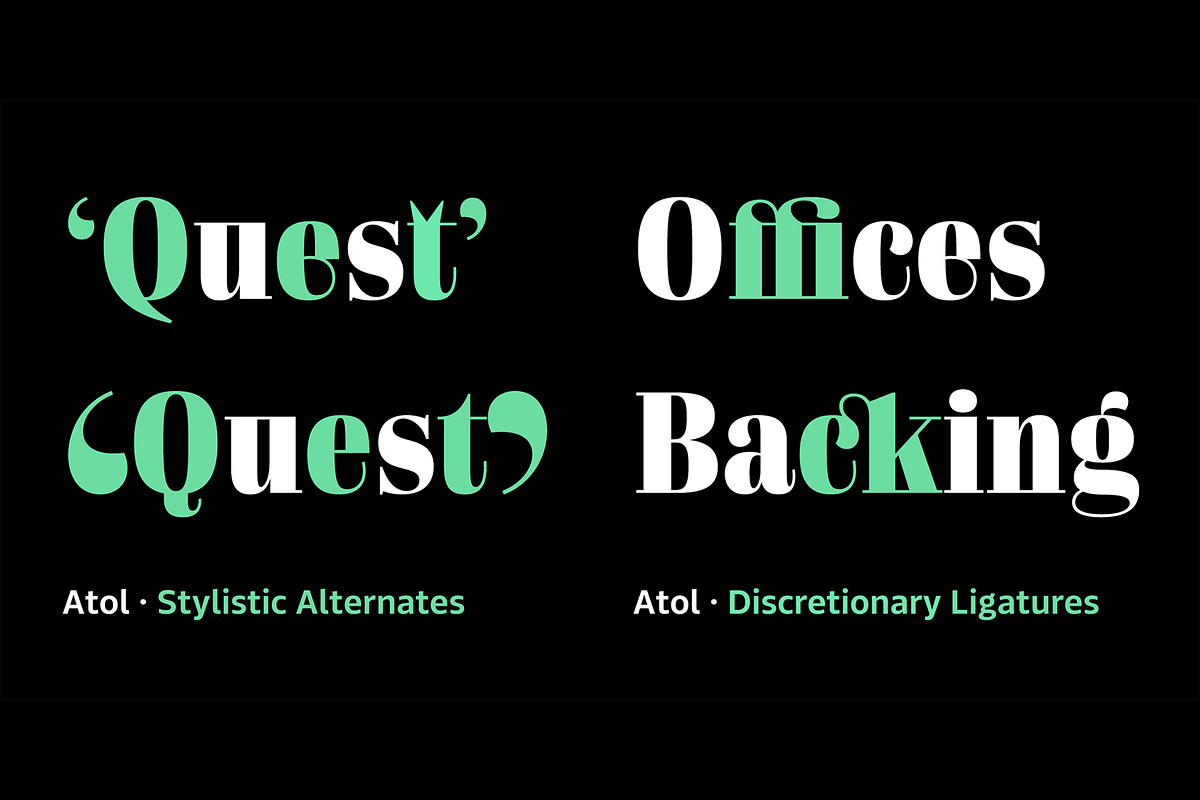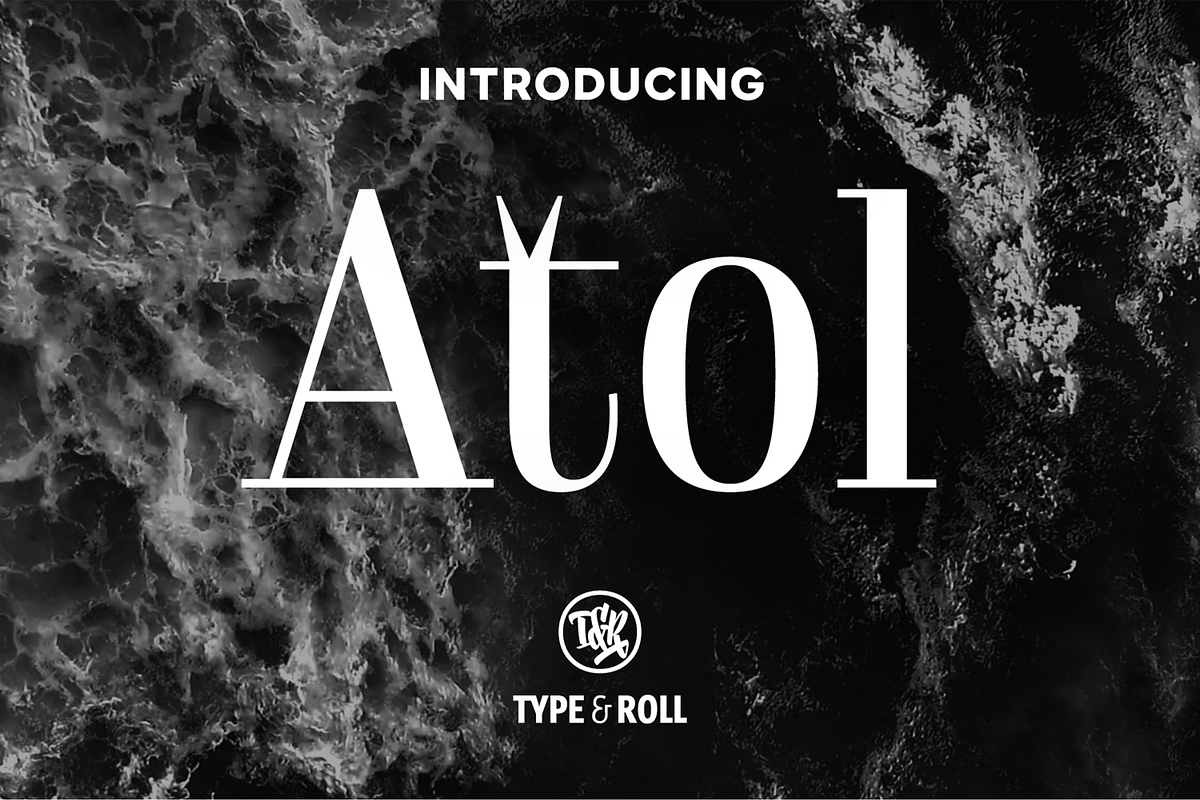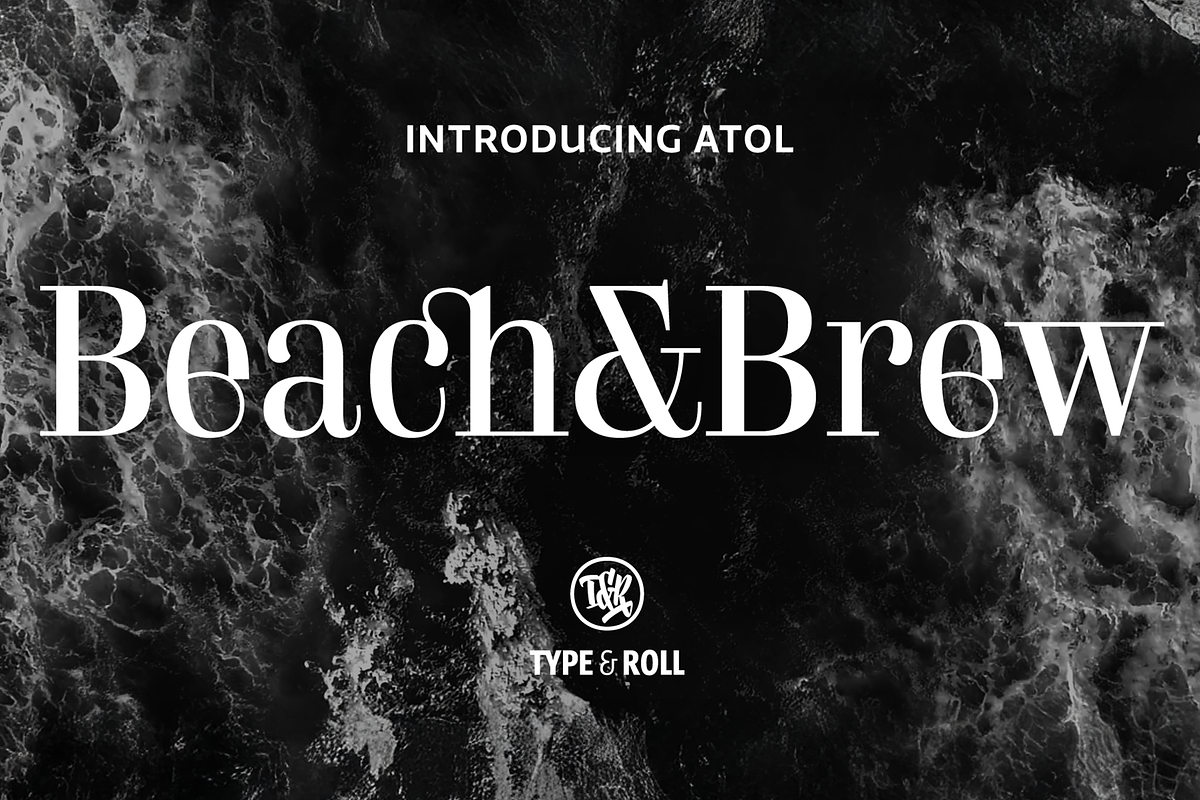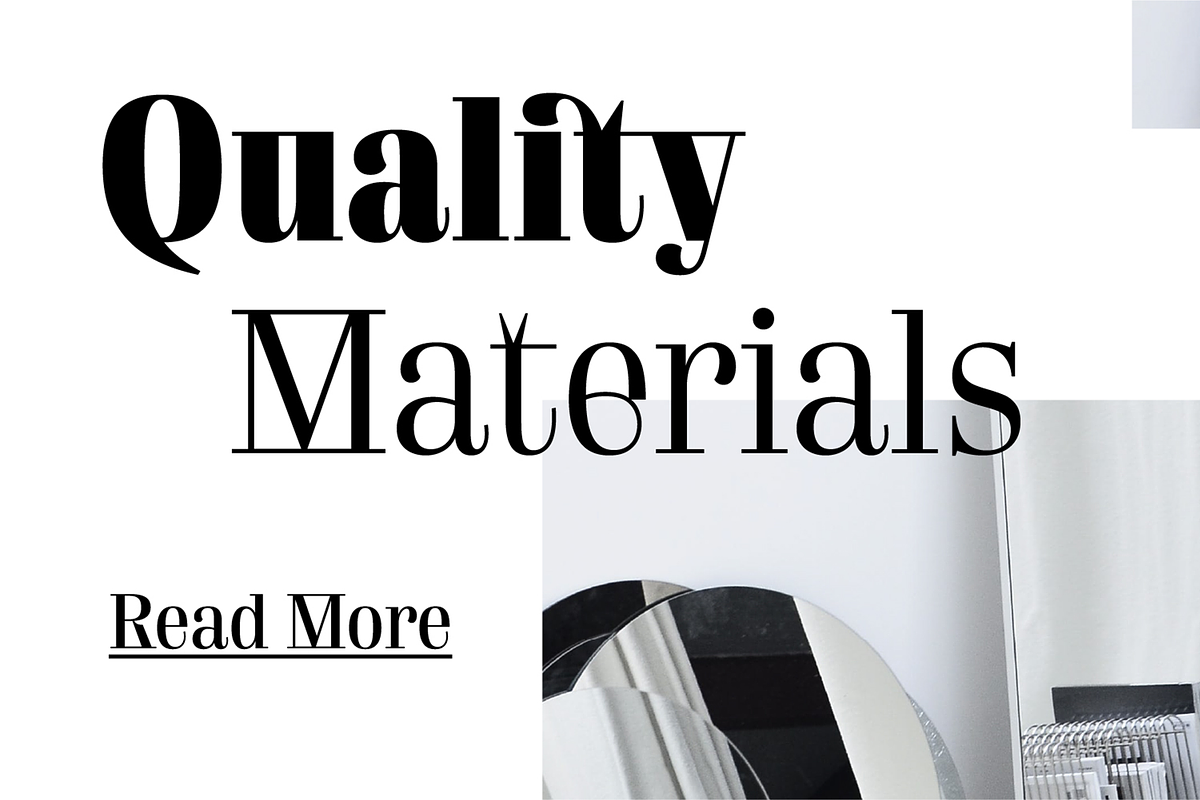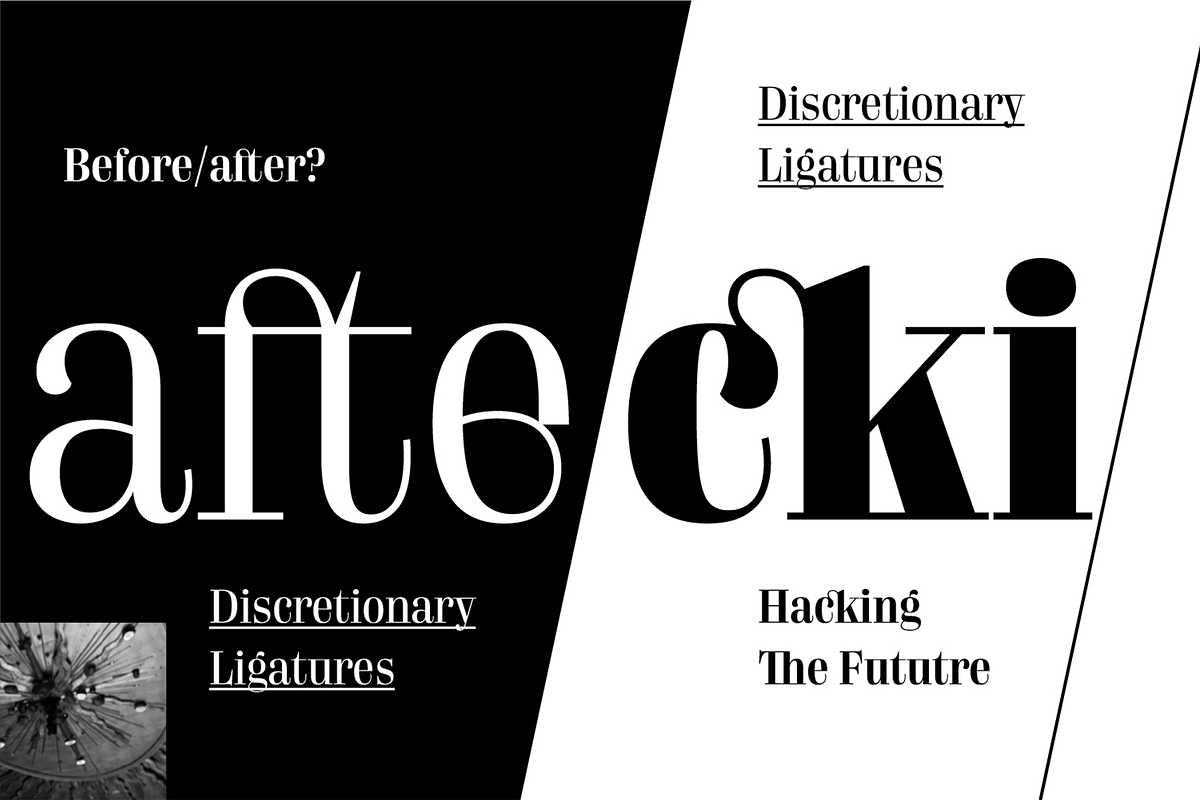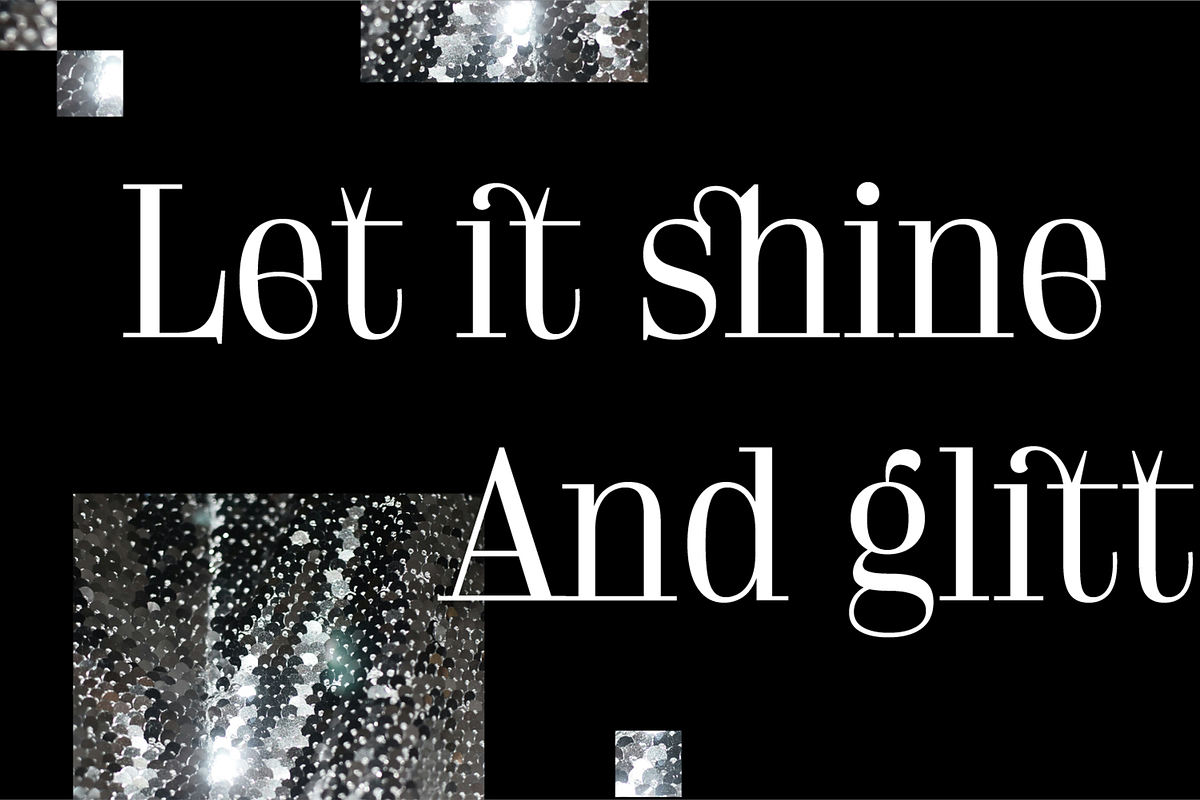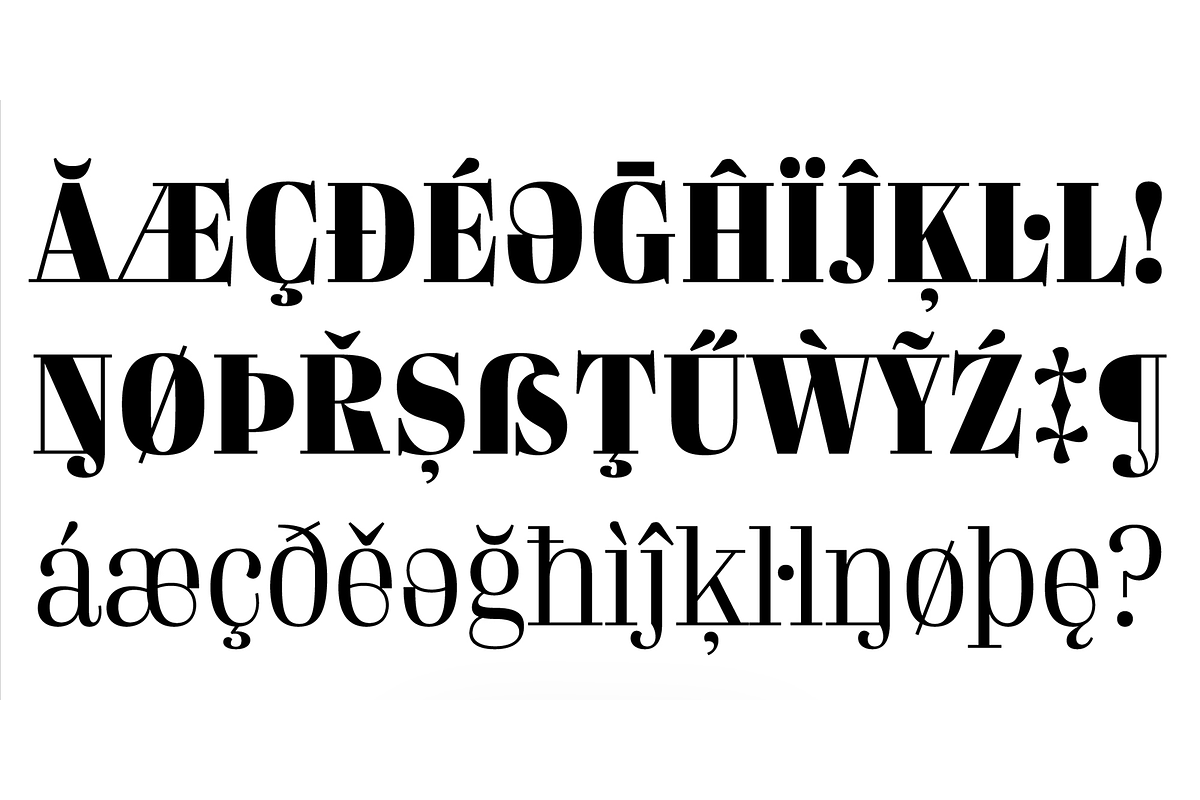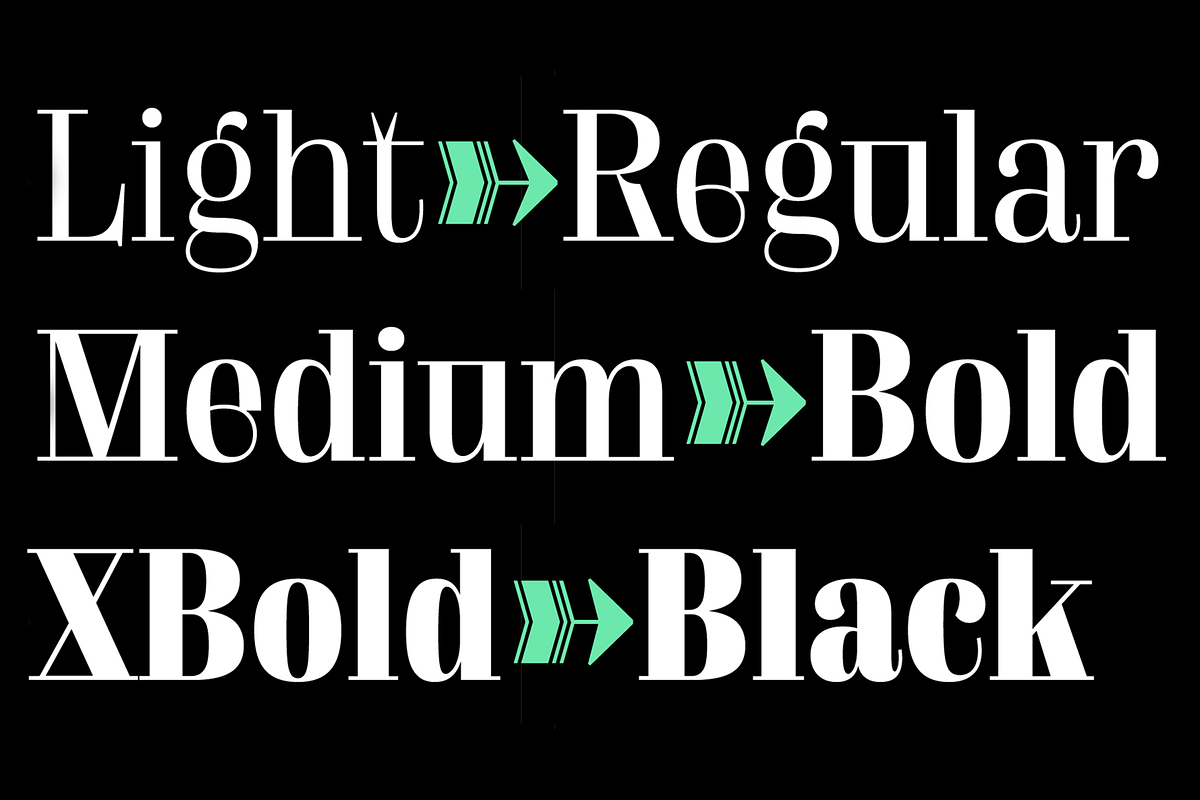
Atol
Atol is a contemporary take on classic didone types. High contrast and modern proportions, combined with subtle details, makes it ideal for characteristic, bold, tightly-set headlines in magazines, branding, animated typography and more.
Individual weights & styles (7 fonts) Roman, Light, Regular, Medium, Bold, XBold, Black
Features Stylistic Alternates, Discretionary Ligatures, Standard Ligatures, Case-sensitive Forms, Subscript, Superscript, Lining Figures, Old-style Figures, Proportional Figures, Tabular Figures, Fractions